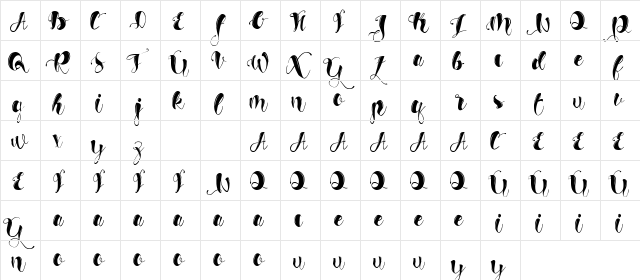
Ghost Demo Inline Regular
Design Context for Ghost Demo Inline Typeface
Ghost Demo Inline brings ornamental detail and strong personality to headlines and identities, where visual impact matters more than quiet functionality.
Font Pairing: Pair with a clean neutral sans-serif for body copy to let Ghost Demo Inline's character lead without overwhelming the composition.
Pro Tip: Use Ghost Demo Inline exclusively at display sizes — it was designed to be seen, not read at length. Let a neutral companion handle body copy.